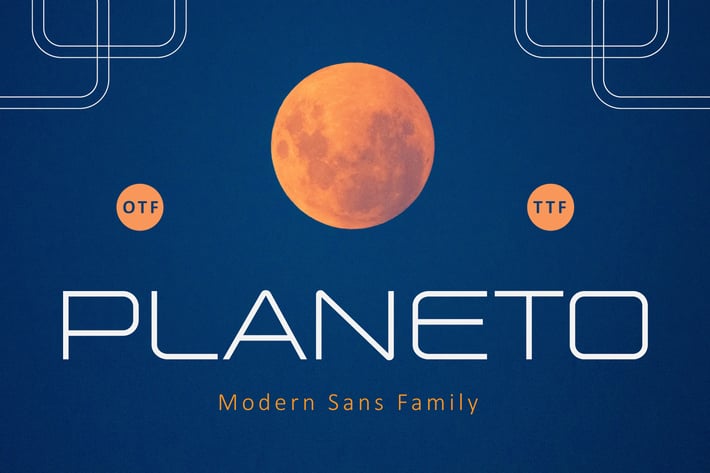
PLANETO futuristic font
Planeto is elegant modern futuristic sans serif font family. It can easily be matched to an incredibly large set of projects for your company/ corporate, so add it to your creative ideas and notice how it makes them stand out!